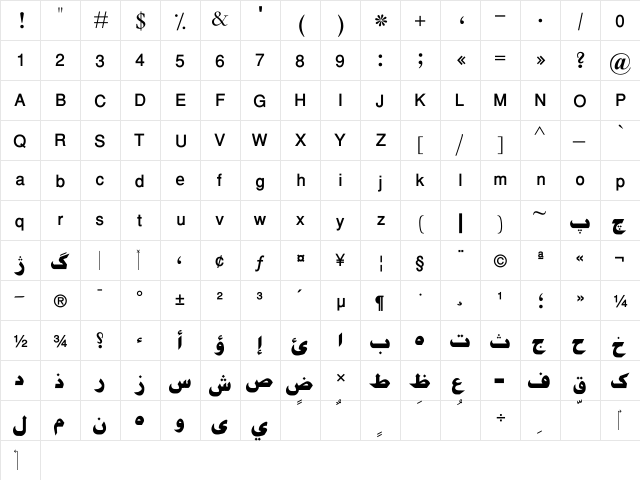
AGT M Nasim Baras Bold
| Designer | Ahmad Gul Totakhyl |
Design Context for AGT M Nasim Baras Typeface
AGT M Nasim Baras is a composed and adaptable typeface that performs quietly and consistently across a wide range of design contexts. The heavy weight commands attention and anchors typographic hierarchies.